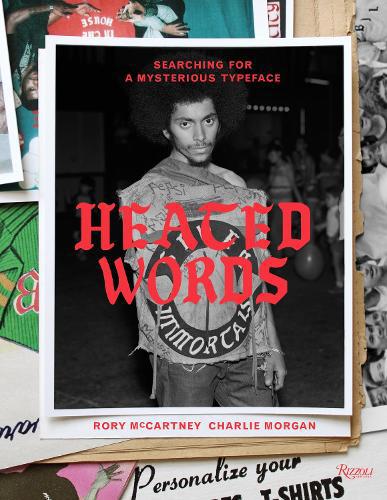
Heated Words
As more than 300 richly layered illustrations in the book reveal, this particular typeface bold, neo-Gothic, and imposing decorates the fabric of the most influential music and fashion subcultures of the last half-century. Having evolved from embellished military flight jackets and sports uniform lettering in the early part of the twentieth century, the typeface appears on the denim vests of street gangs, the t-shirts of B-Boys in the 1970s, and the lo-fi DIY outfits of punk kids through the 1980s. Since its heyday as the Helvetica of the hip-hop generation, the font is once again an inescapable element of referential contemporary street style. Creatively designed with images on top of images to reference the layering process of cultural appropriation, and with contributions from insightful voices in the fields of music, fashion, and typography including Andy Cruz and Jonathan Hoefler this book is a celebration of the ingenuity and irreverence of street style. A must-have reference for designers and students of fashion and typography.